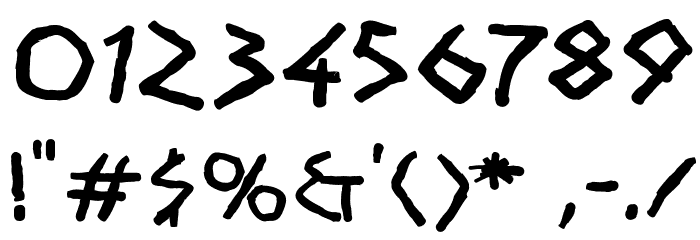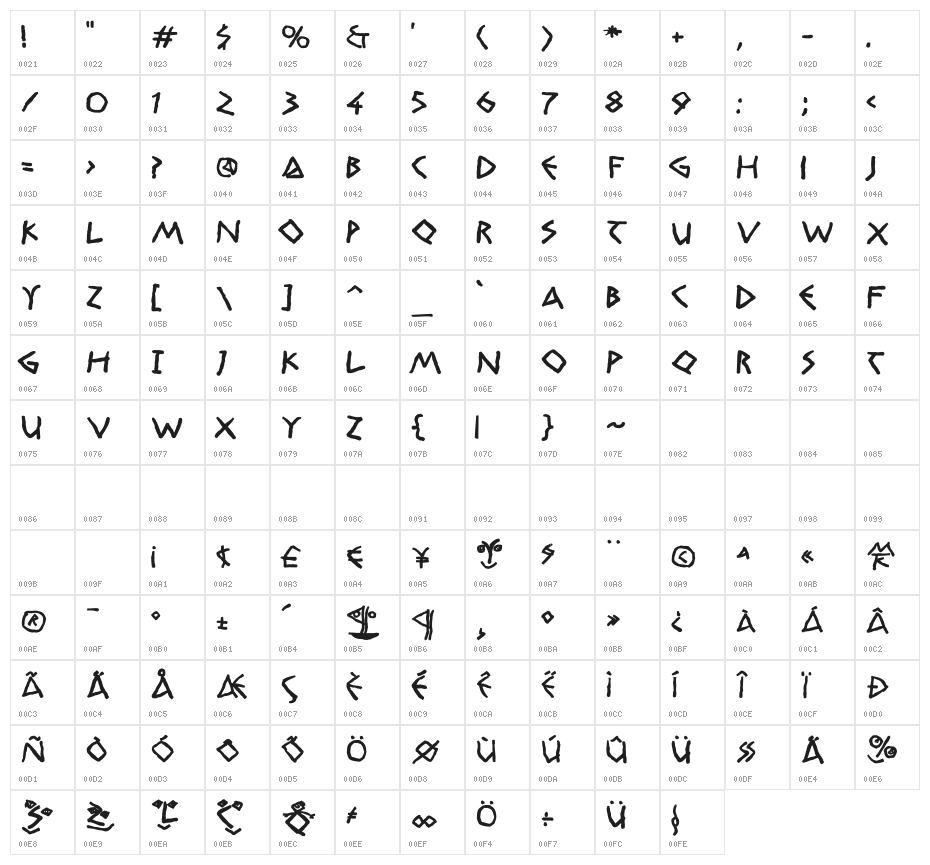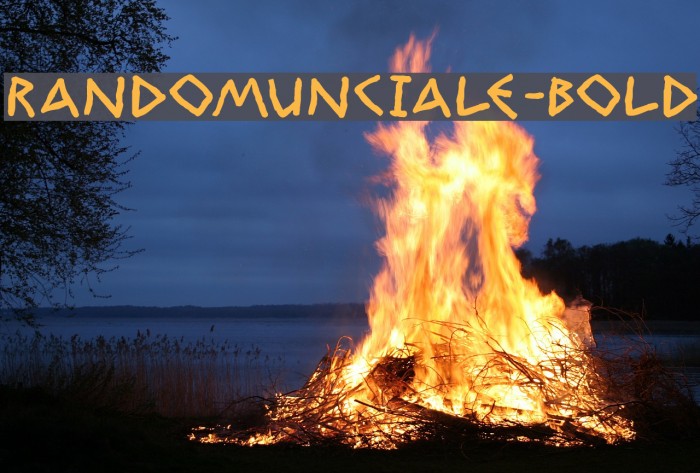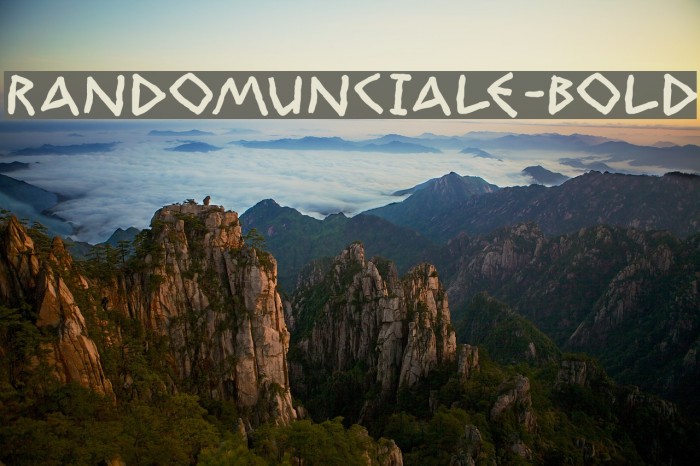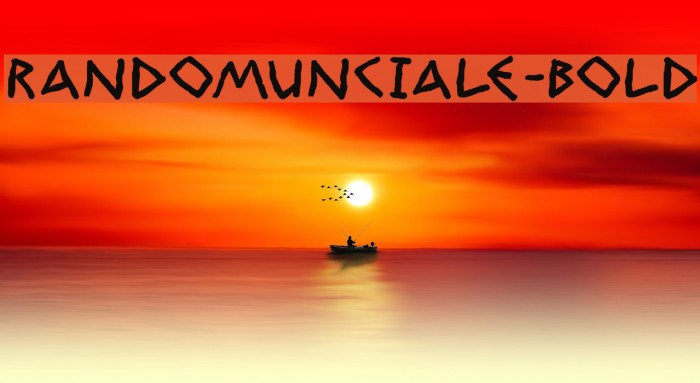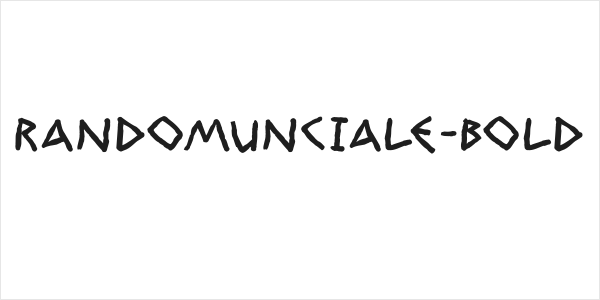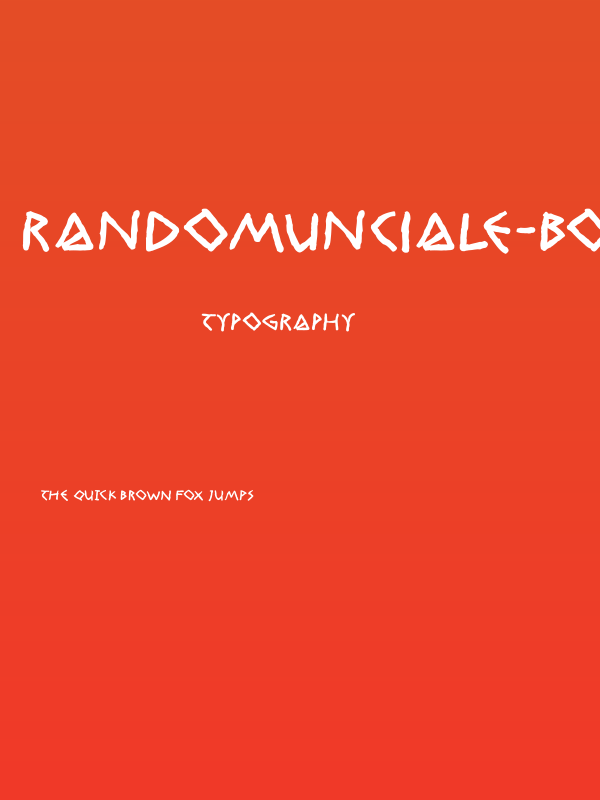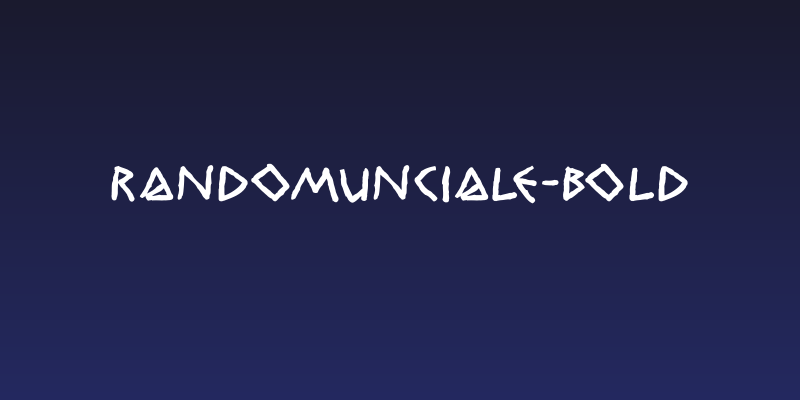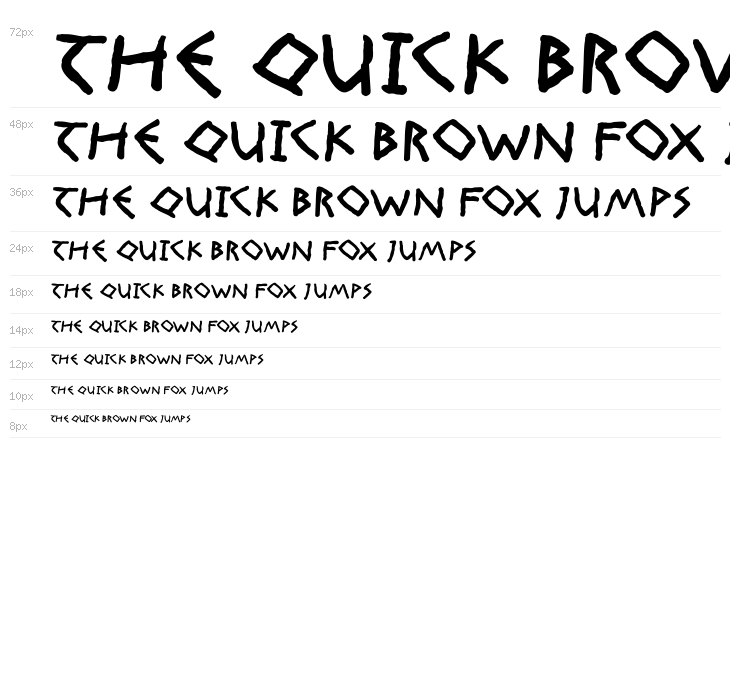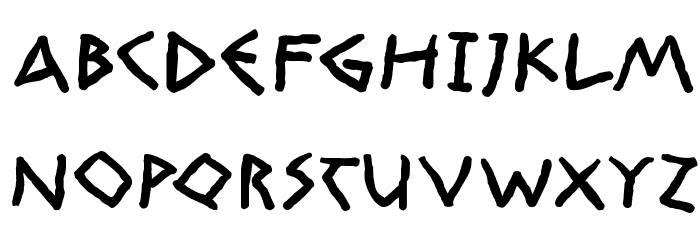
RandomUnciale-Bold Font
RandomUnciale-Bold Description
This font features a bold and striking design, reminiscent of ancient scripts with a modern twist. The characters are crafted with a rough, hand-drawn appearance, giving them a unique and organic feel. The uppercase letters are consistent in height, while the lowercase letters maintain a similar style, enhancing readability. Numbers and special characters are designed to match the overall aesthetic, making them cohesive with the alphabet. The font's bold strokes and uneven edges contribute to its distinctive and artistic look, making it ideal for projects that require a touch of historical or rustic charm.
| Proposed Projects | Ideal for historical-themed designs, rustic branding, artistic posters, and creative invitations. |